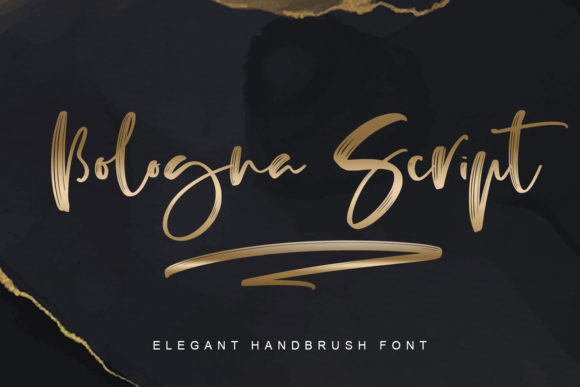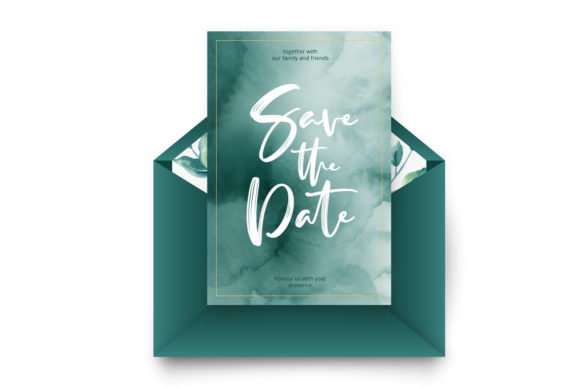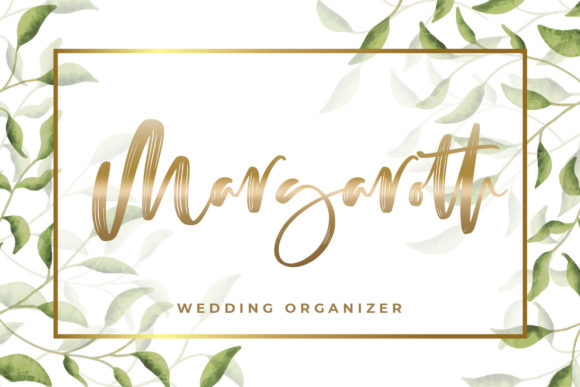
About Bologna Script Font
Bologna Script is a modern handwritten font that is readable and stylish. It is defined by smooth curves and is perfect for fashion branding or editorial designs. This font is PUA encoded which means you can access all of the beautiful glyphs and swashes with ease!